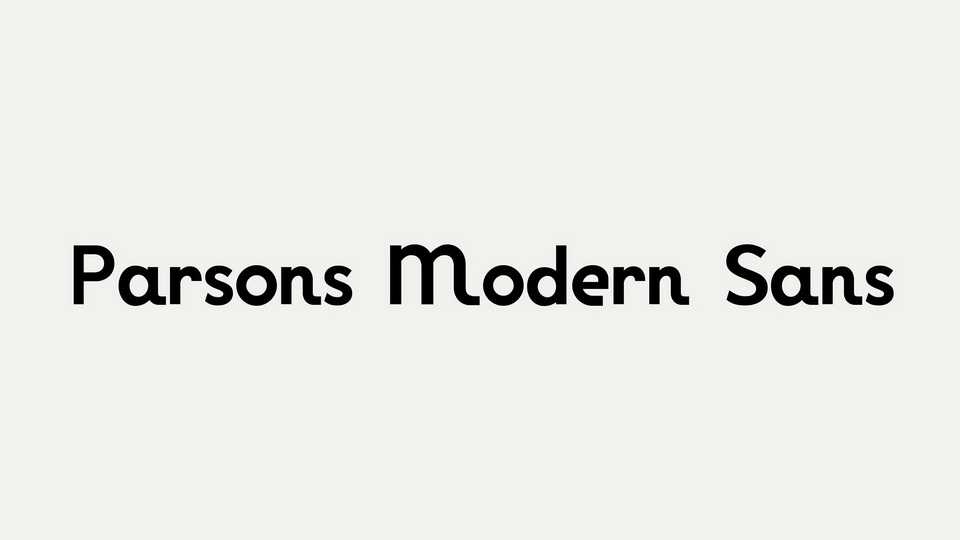
Download Parsons Modern Sans font, a typeface, inspired by the Parsons font – designed for “BB and S” in 1917 by Will Ransom. It was based on the distinctive style of lettering he had been doing for advertisers in that city